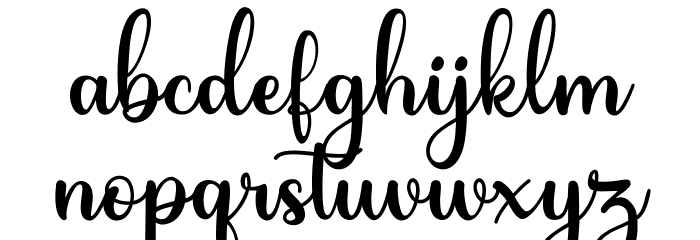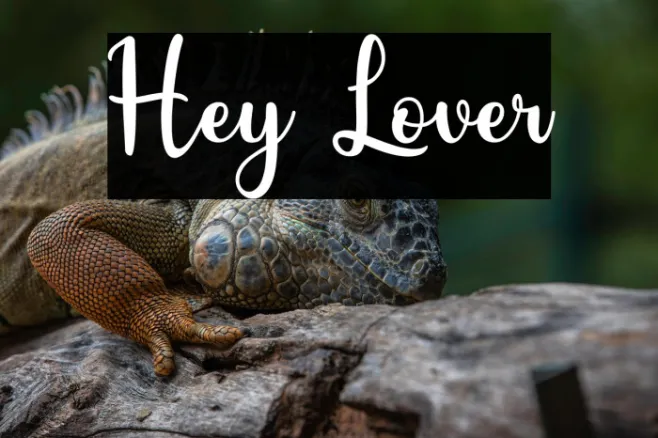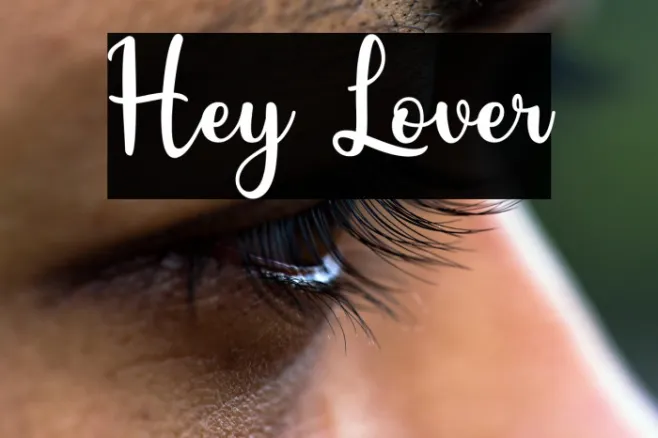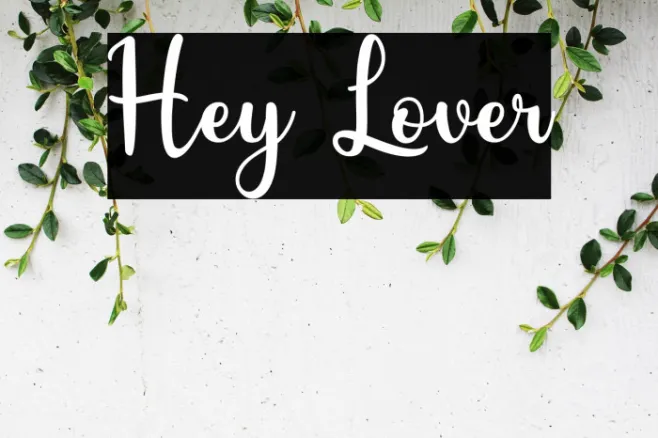
Hey Lover Font
This font features a lively and flowing script style, characterized by its elegant curves and smooth connections between letters. The uppercase letters are bold and expressive, with a slight slant that adds a dynamic feel. The lowercase letters maintain a consistent rhythm, enhancing readability while preserving the artistic flair. Numbers are clear and distinct, matching the overall style with their rounded forms. Special characters are thoughtfully designed to integrate seamlessly with the rest of the font, ensuring versatility in various applications. The font's playful yet sophisticated appearance makes it suitable for a wide range of creative projects.
A lively and flowing script font with elegant curves and smooth connections.
- Proposed Projects: Ideal for wedding invitations, greeting cards, branding, and social media graphics.
- Use Case: Logos, Invitations, Decorative Text